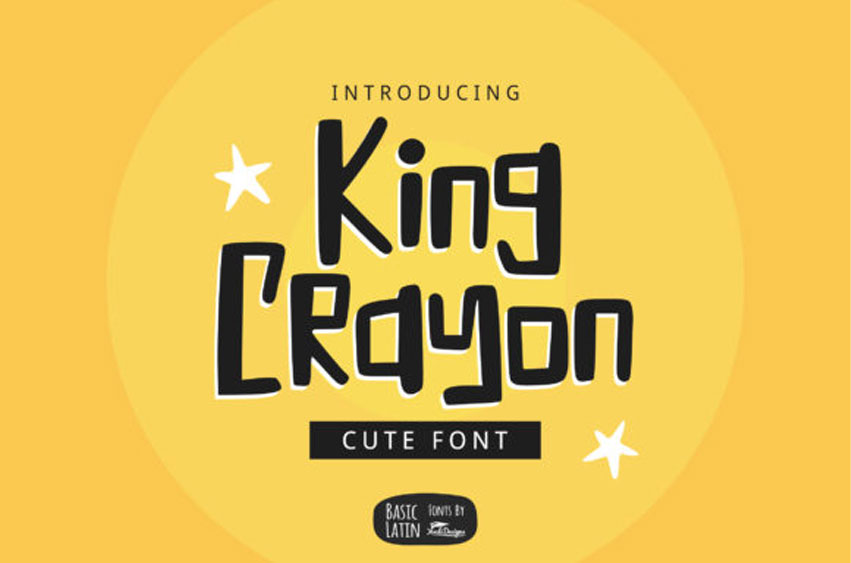
King Crayon Font
King Crayon Font is an incredibly cute and cartoon like display font.
Whether you’re using it for crafting, digital designing, presentations or greeting cards making, it’s perfect!